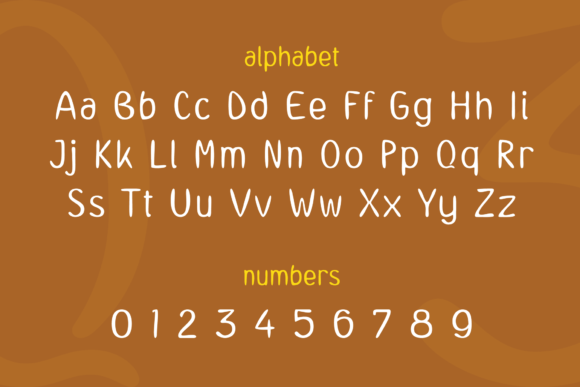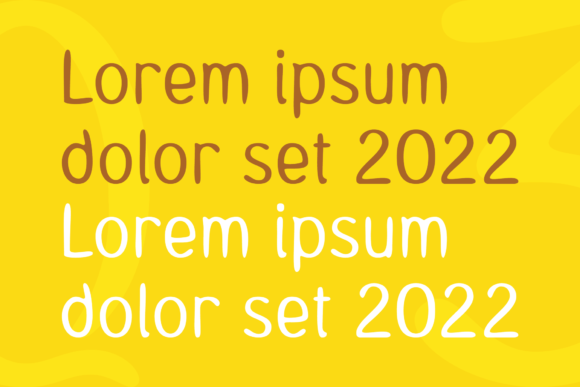
Coastly Font
db-ku.com - Script & Handwritten -- Meet Coastly, a handwritten font that makes you think about vacation, summer, holidays, friends, and family. It’s a calm and relaxing font that works great on headlines, posters, product design, quotes, branding, marketing materials, and more.